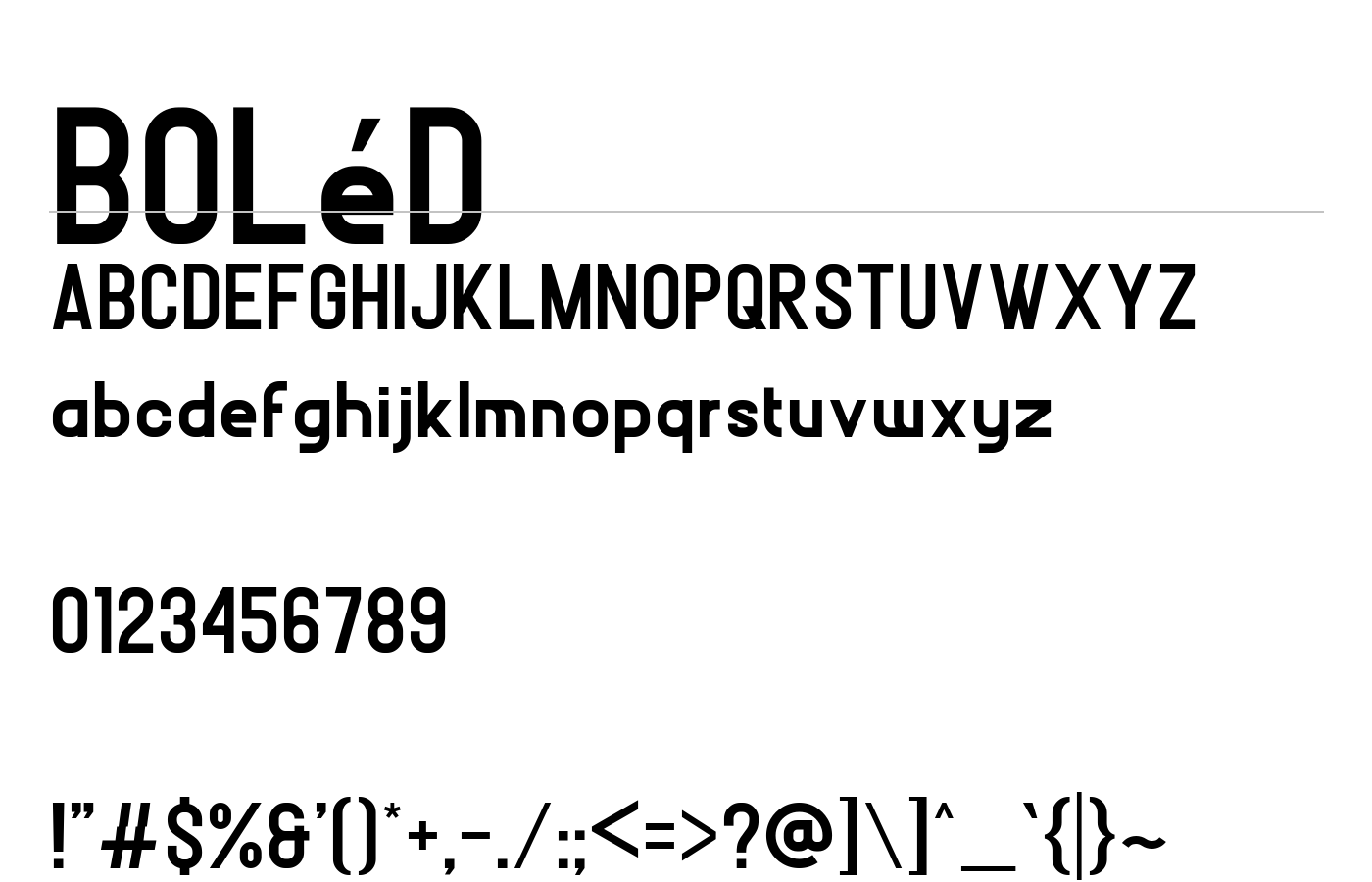
BOLéD is a modern sans serif font featuring a tall, condensed structure with clean, geometric strokes and medium contrast that gives it a bold yet approachable character. Its unique letterforms, including distinct lowercase shapes and sharp edges, make it ideal for striking headlines, branding, and editorial design where clarity and contemporary style are key. This font works well for fashion, tech, and lifestyle projects looking to convey a sleek, confident, and urban vibe.
| Font family | BOLéD Font |
| Designer | Jani Nurman |
| Trademark | by StudioAKTYPE |